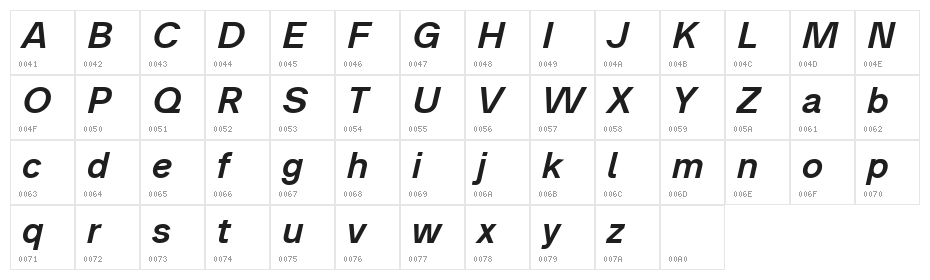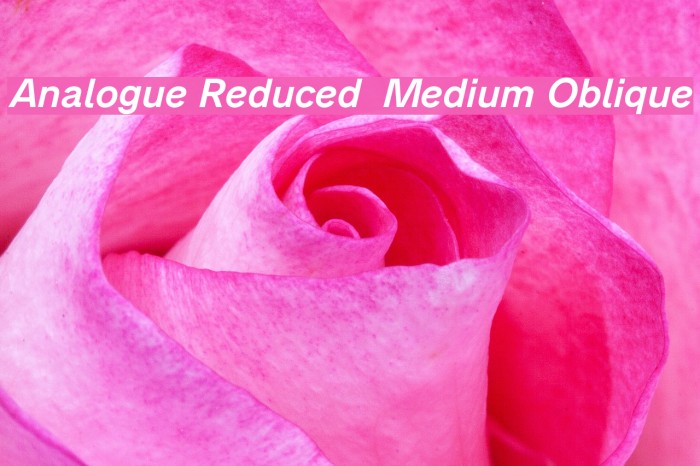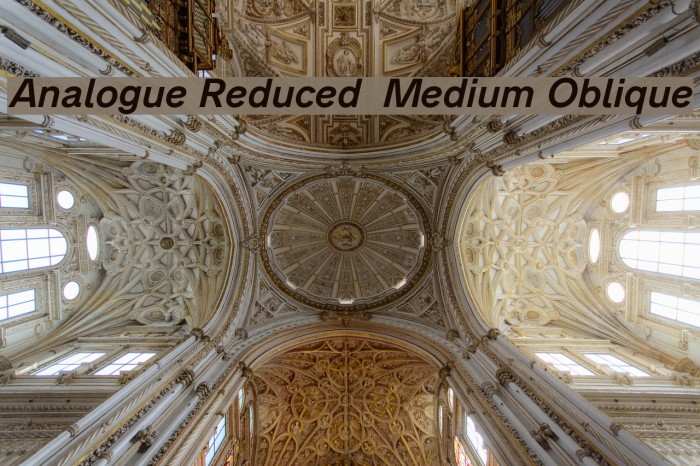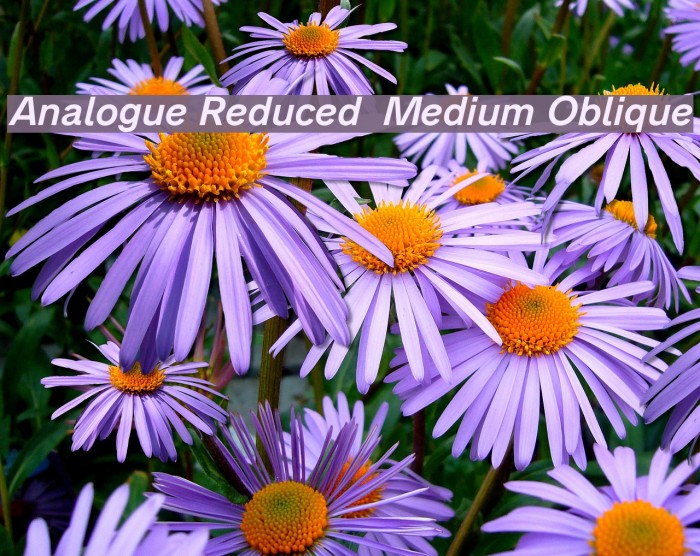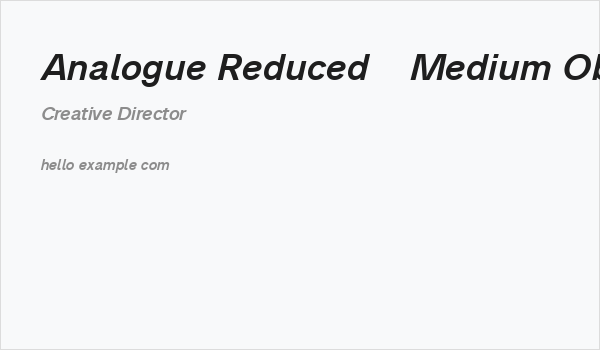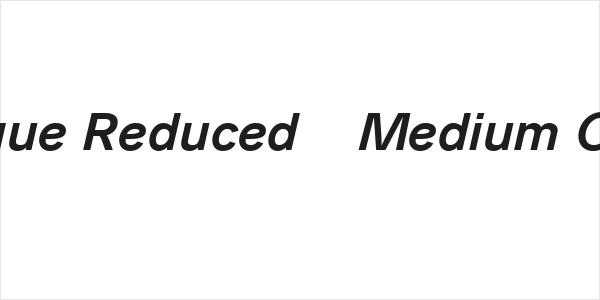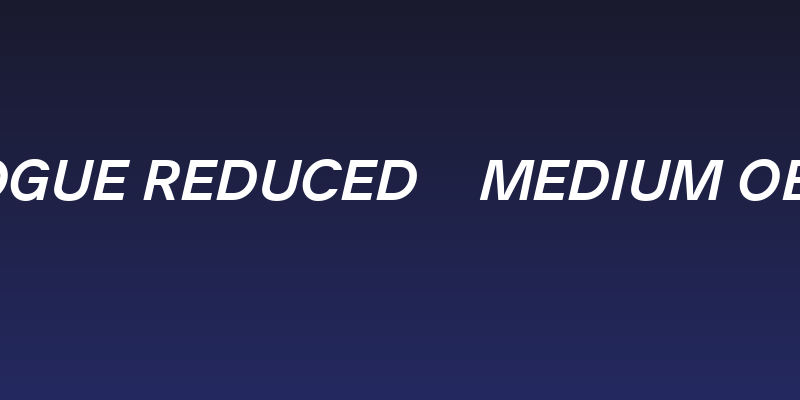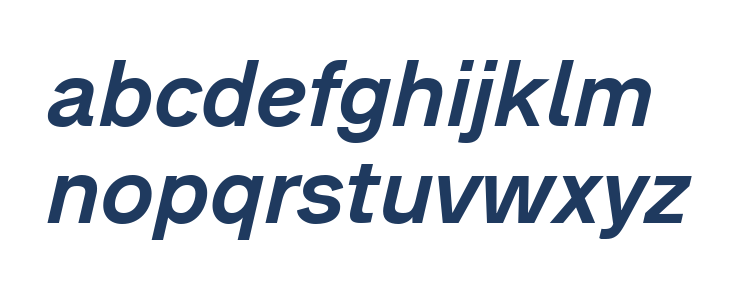
Analogue Reduced 66 Medium Oblique Font
Analogue Reduced 66 Medium Oblique Description
This font exhibits a sleek, modern aesthetic with a distinct oblique style, giving it a dynamic and forward-leaning appearance. The characters are well-proportioned with a consistent medium weight, providing a balanced and readable text. The sans-serif design ensures clarity and simplicity, making it suitable for various applications. The slant adds a sense of motion and urgency, ideal for contemporary designs. The character set includes both uppercase and lowercase letters, numerals, and a selection of special characters, ensuring versatility in usage.
| Use Case | Headlines, Logos, Editorial Design |
| Proposed Projects | Ideal for branding, advertising, and editorial design projects where a modern and dynamic look is desired. |